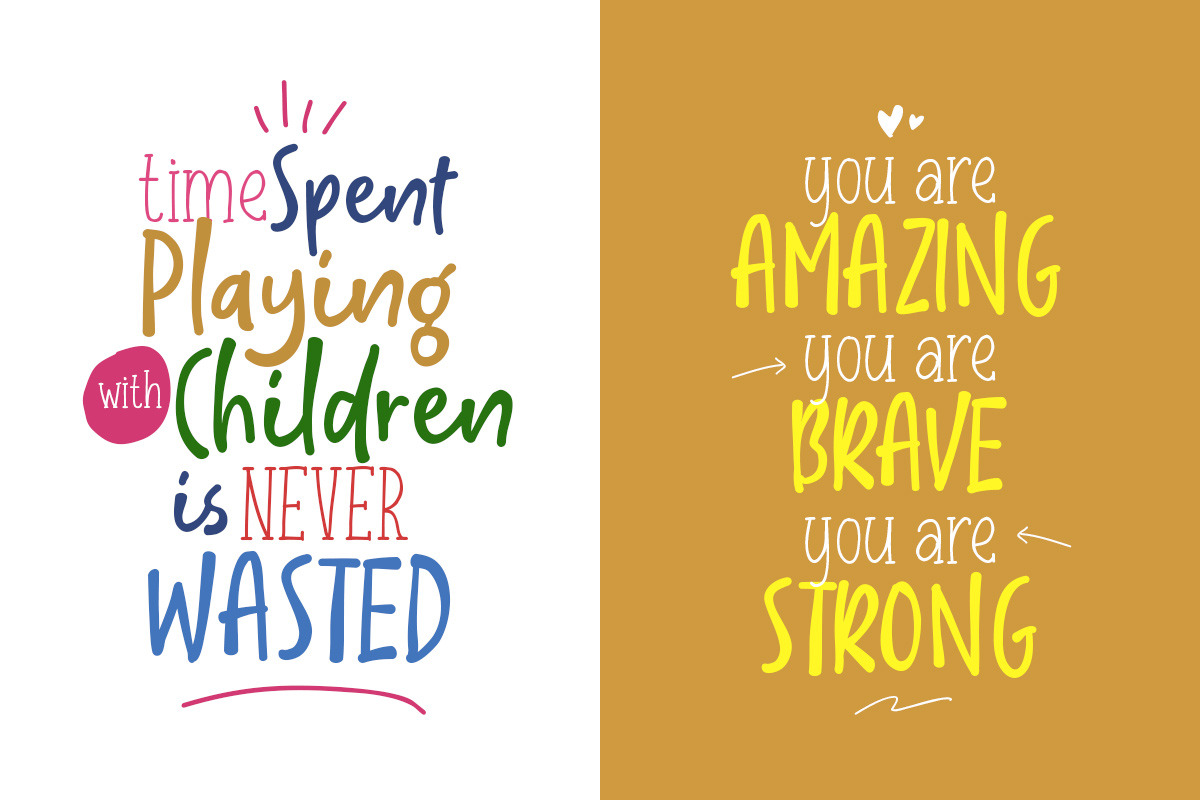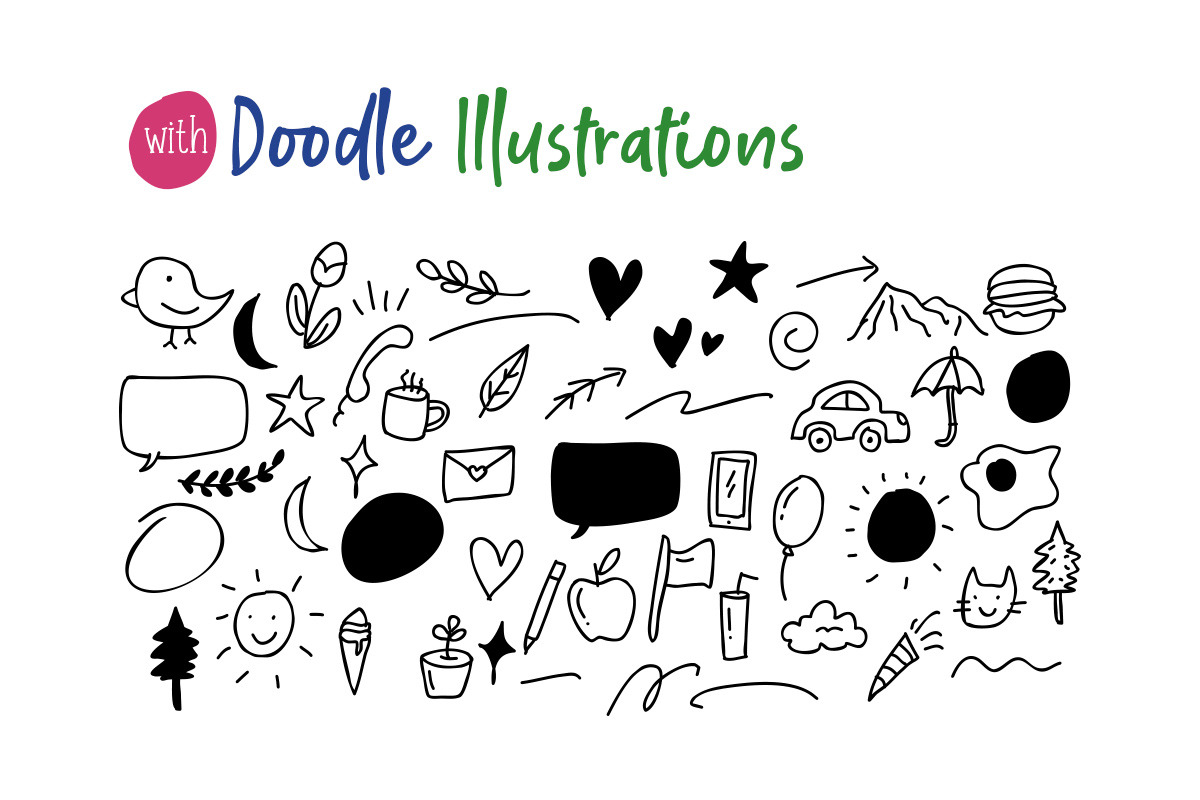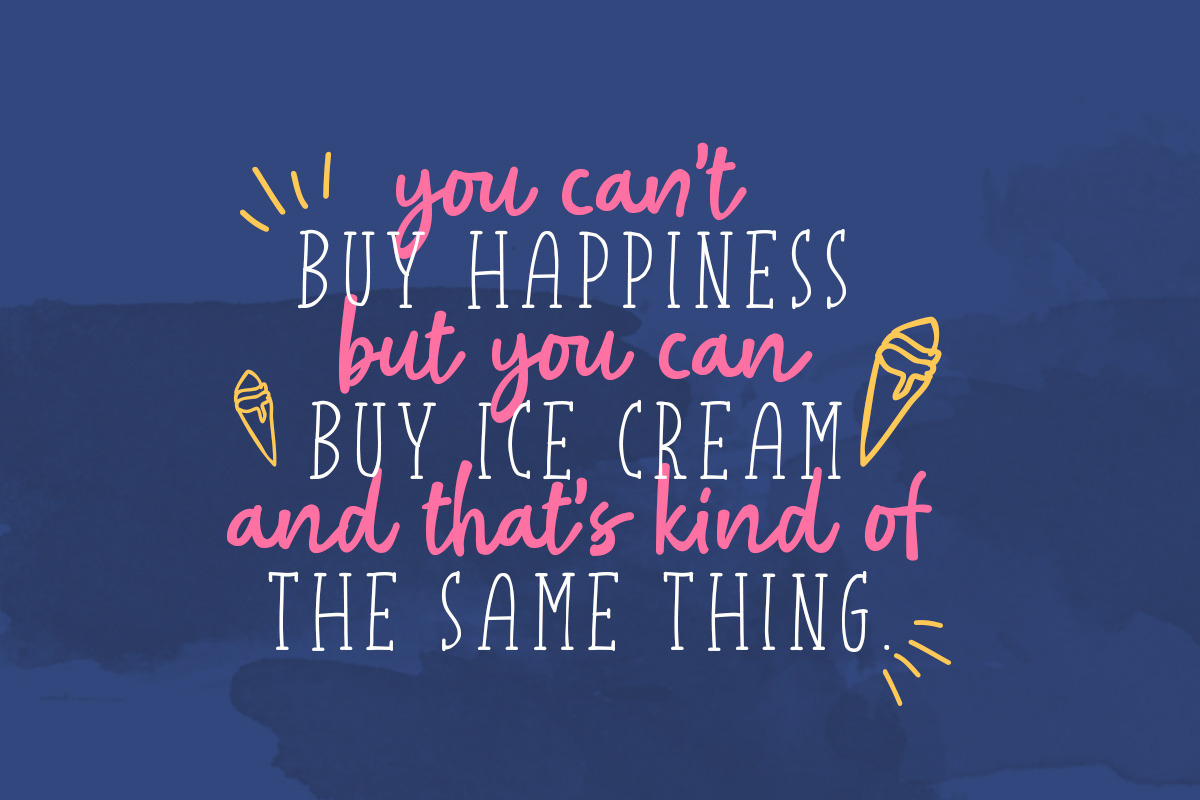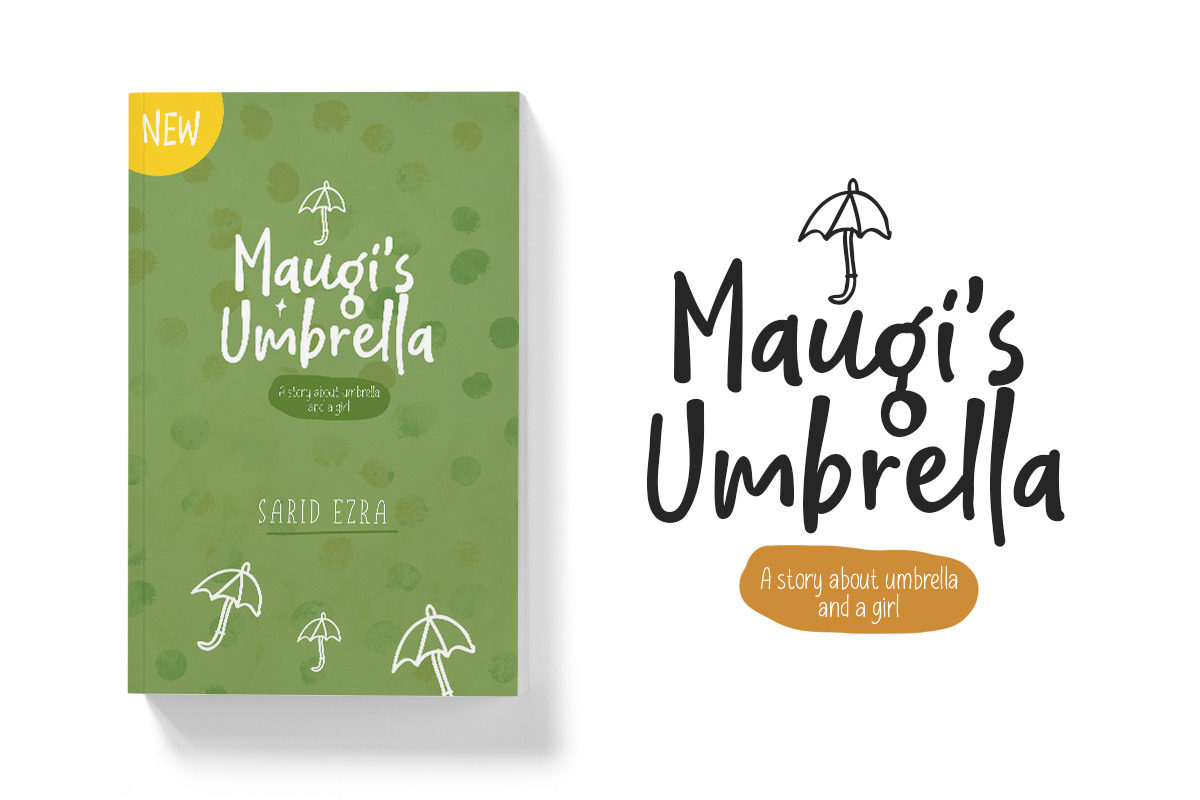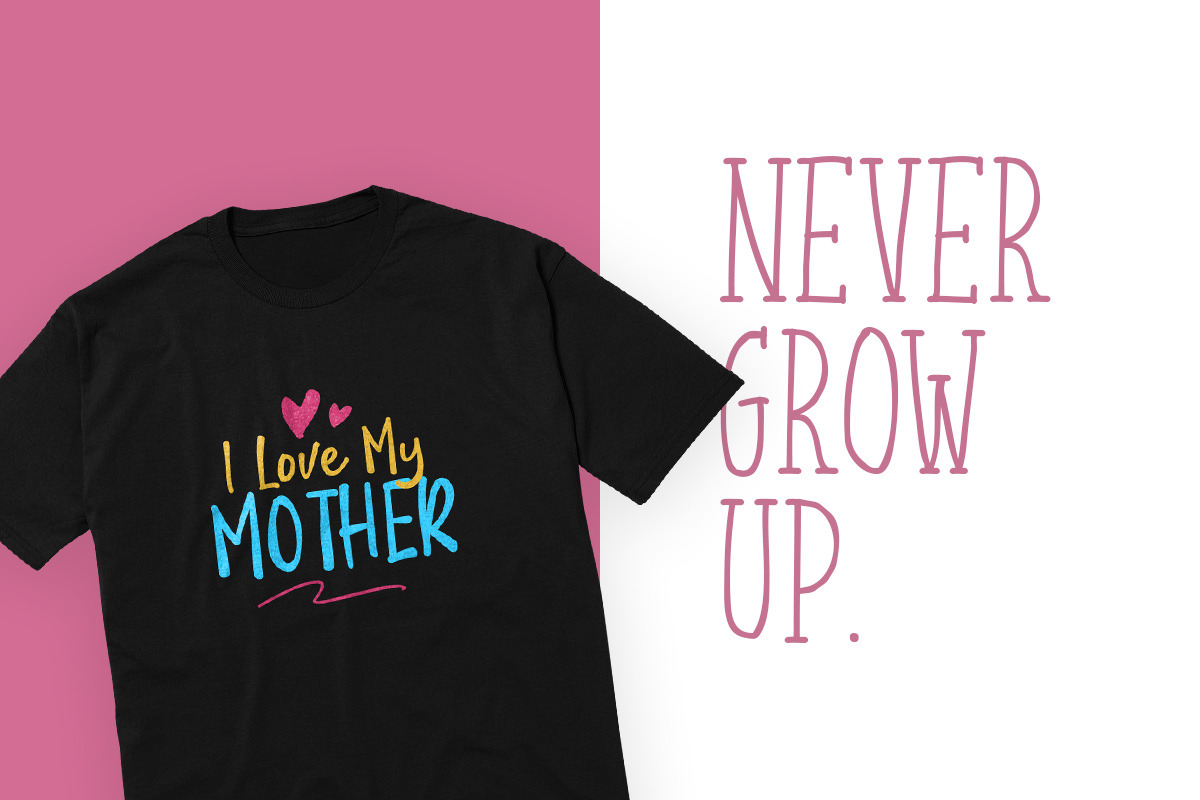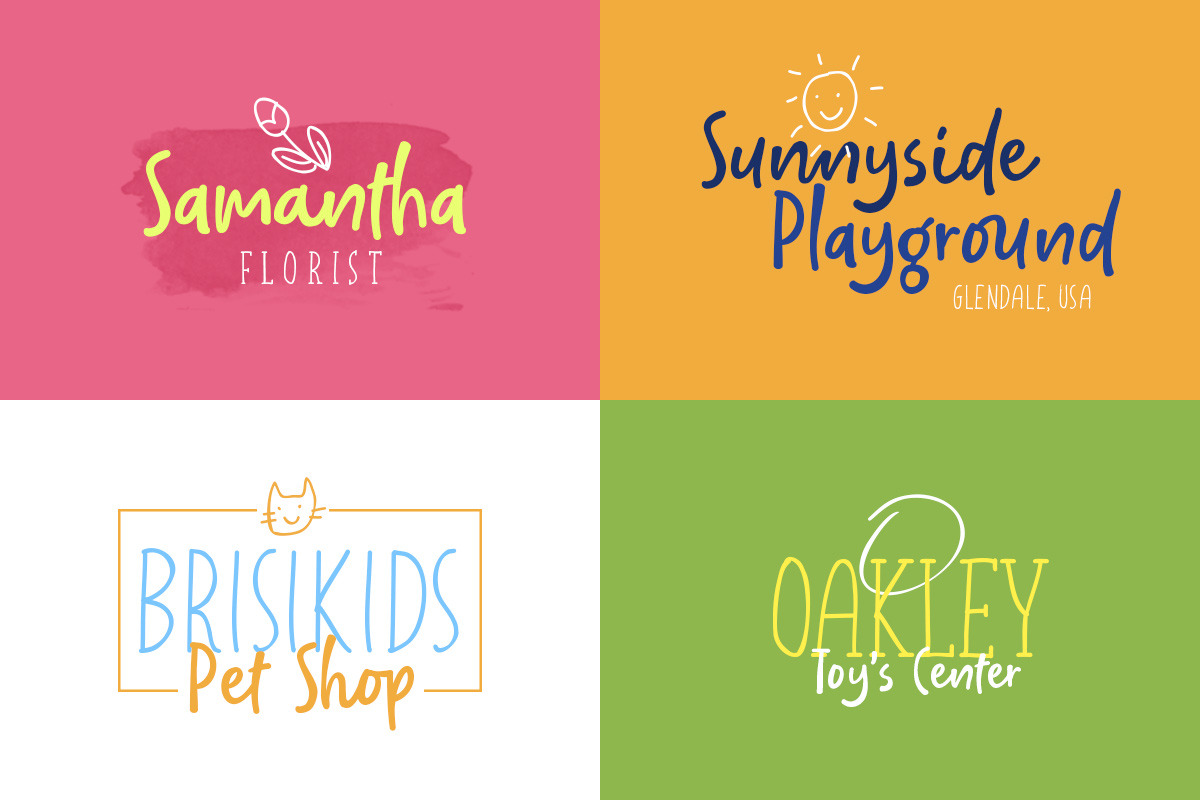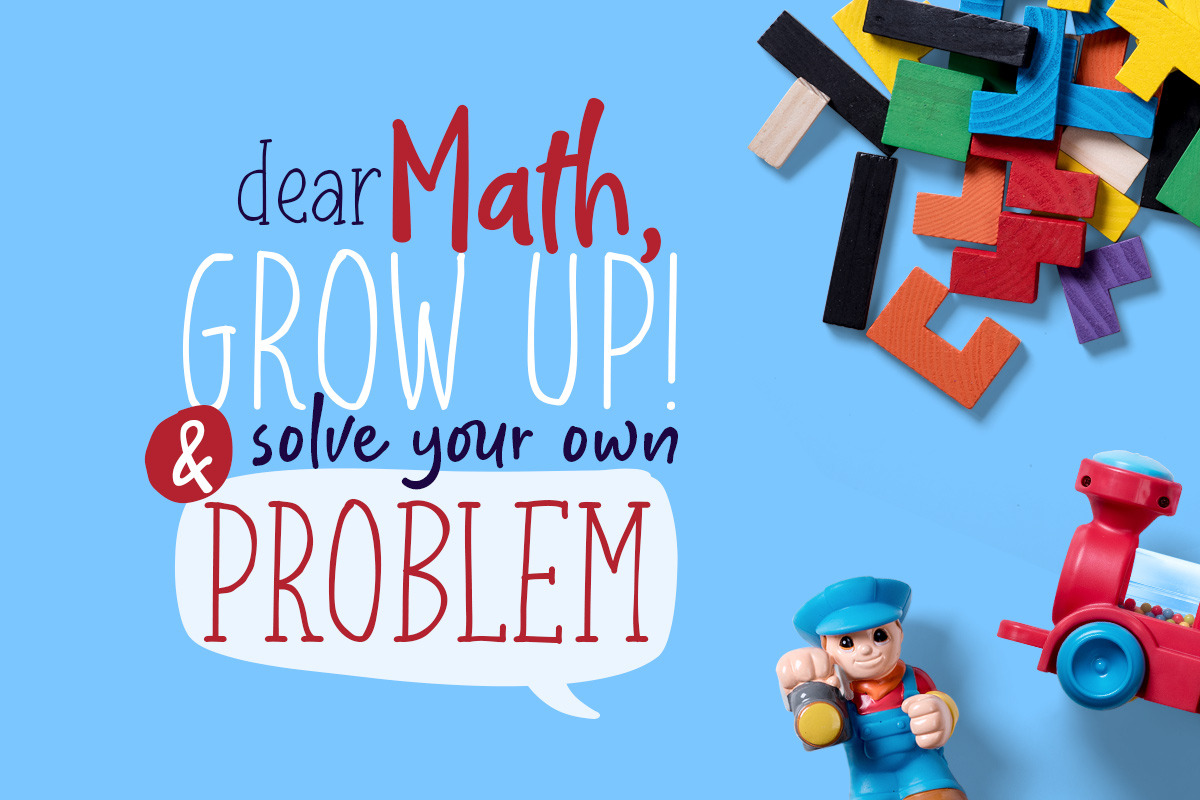
Your Moon - Fun Fonts Collection!
Introducing, Your Moon - Fun Fonts Collection!
Your Moon is fun fonts that contain lowercase, uppercase, symbol, and also support multi language. Including ligatures, and many alternates. You can use this font to make a logo for branding, quote, and playful design. Also already PUA Encoded.
- Your Moon is fun fonts that contain lowercase, uppercase, symbol, and also support multi language.
- Including ligatures, and many alternates.